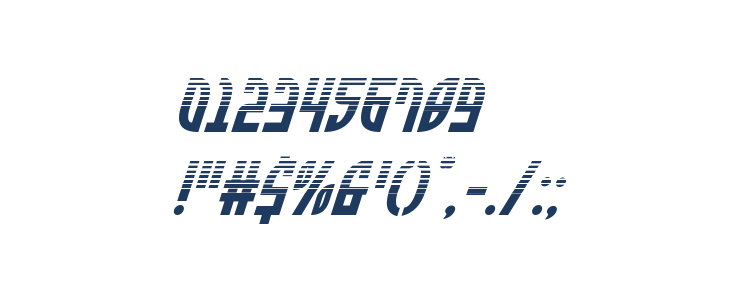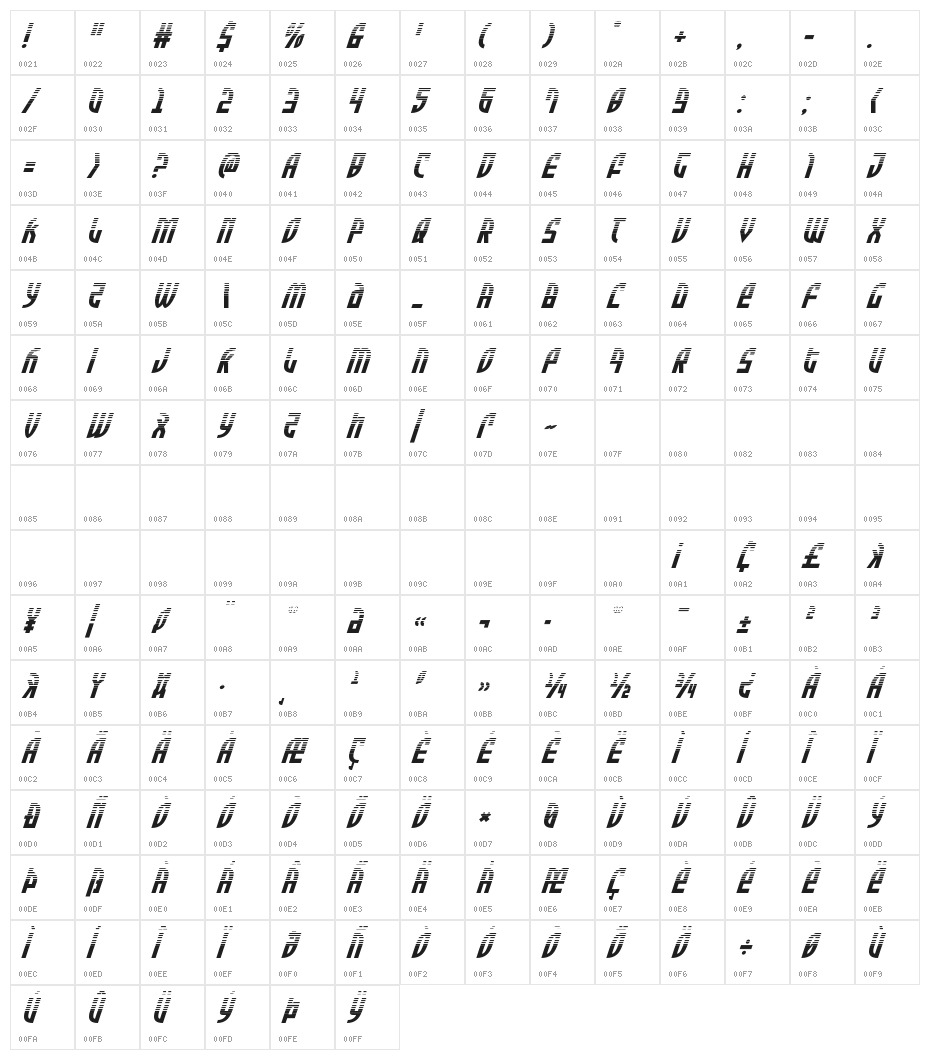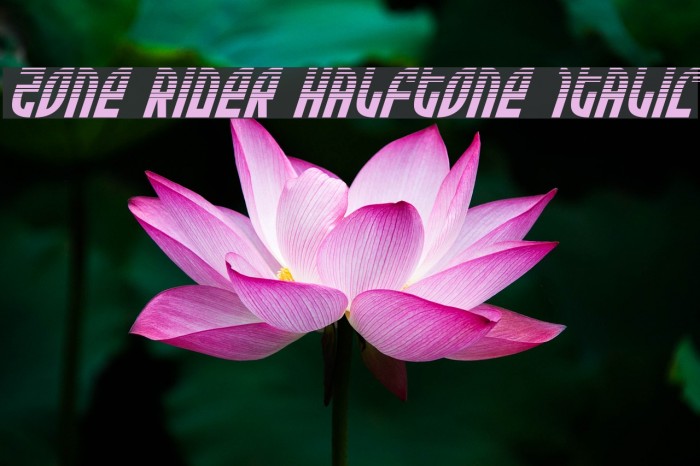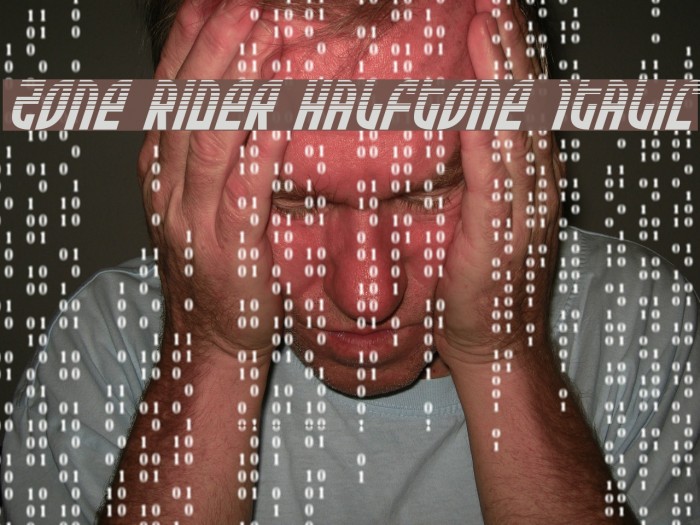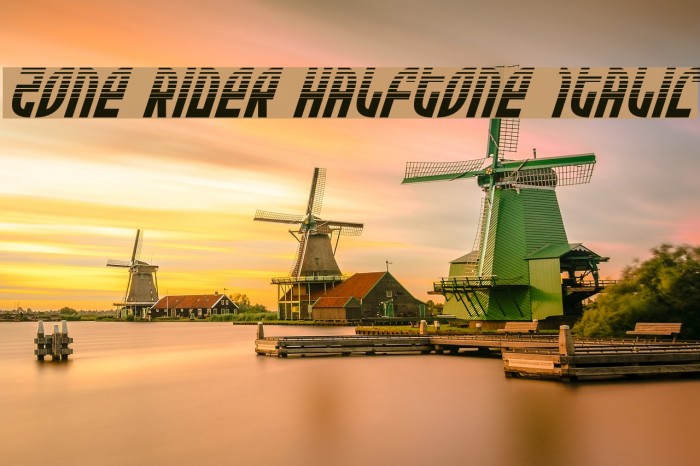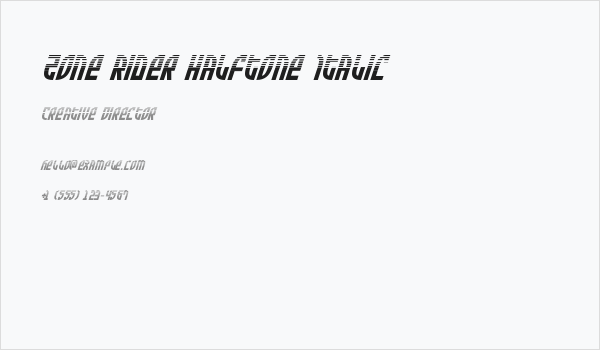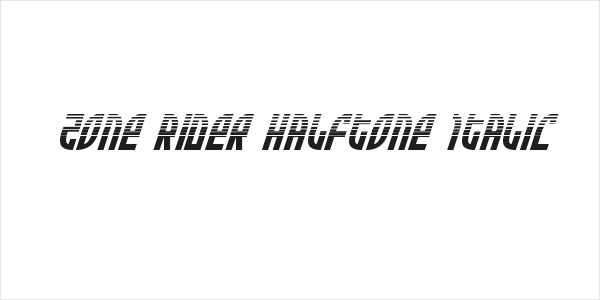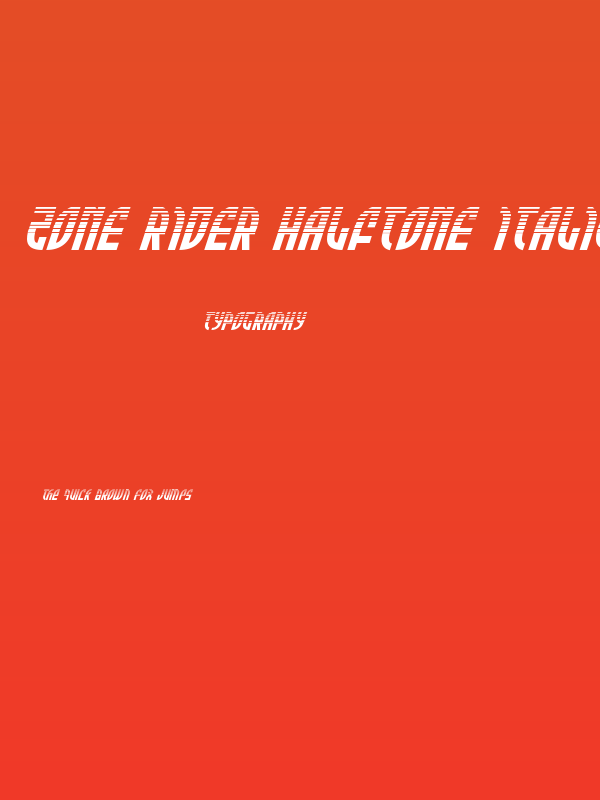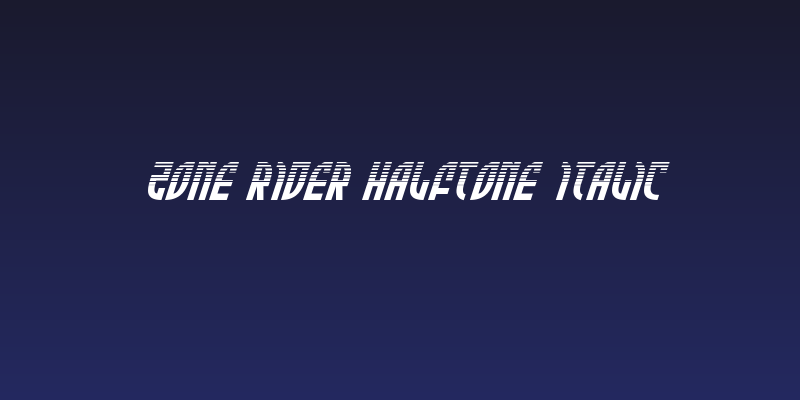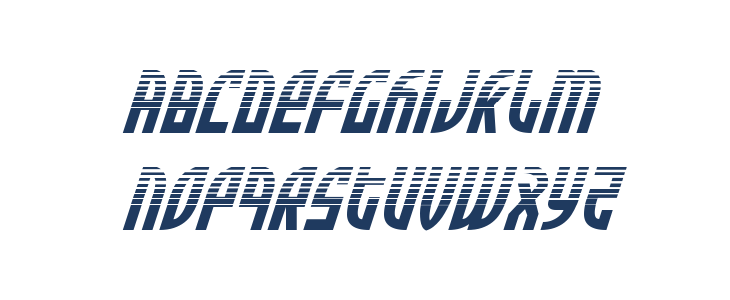
Zone Rider Halftone Italic Font
Zone Rider Halftone Italic Description
This font features a bold and dynamic design with a distinct halftone effect, giving it a futuristic and edgy appearance. The characters are italicized, adding a sense of motion and speed. The uppercase and lowercase letters maintain a consistent style, characterized by sharp angles and a unique pattern of horizontal lines that create a striking visual impact. The numerals and special characters follow the same design principles, ensuring uniformity across all glyphs. This font is ideal for projects that require a modern and eye-catching aesthetic.
| Proposed Projects | Ideal for use in digital art, futuristic branding, sports team logos, and dynamic poster designs. |